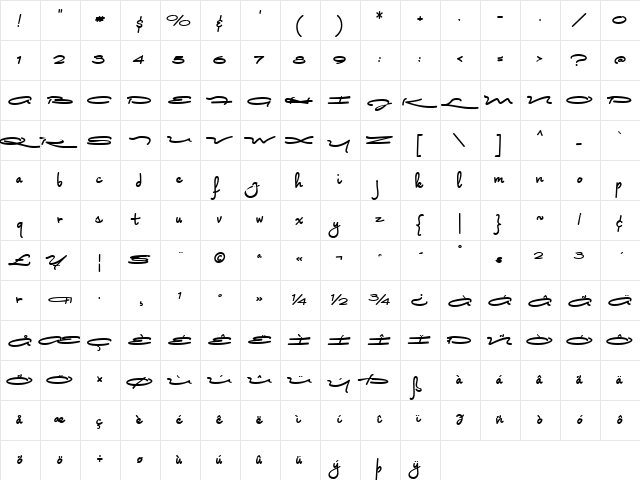
Montelago Regular Font Preview
Montelago Regular
Design Context for Montelago Typeface
Montelago is a composed and adaptable typeface that performs quietly and consistently across a wide range of design contexts.